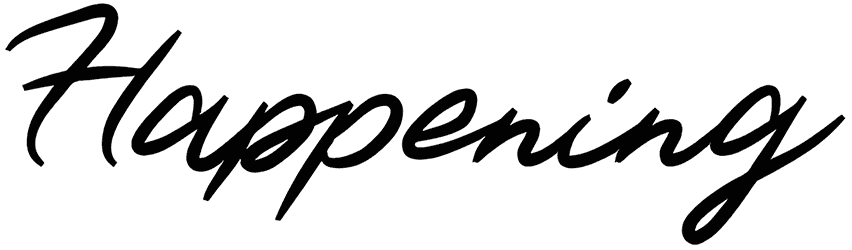
Happening Font
The classic, natural, and organic atmosphere created in the presence of Happening gives your work an authentic, unique, and unforgettable beauty.
In this way, you can create designs that communicate well with human spaces and can tickle the deep emotions of the audience. This script font is great for use in websites, fashion magazines, games, and wedding cards, and can create a stylish and traditional concept.